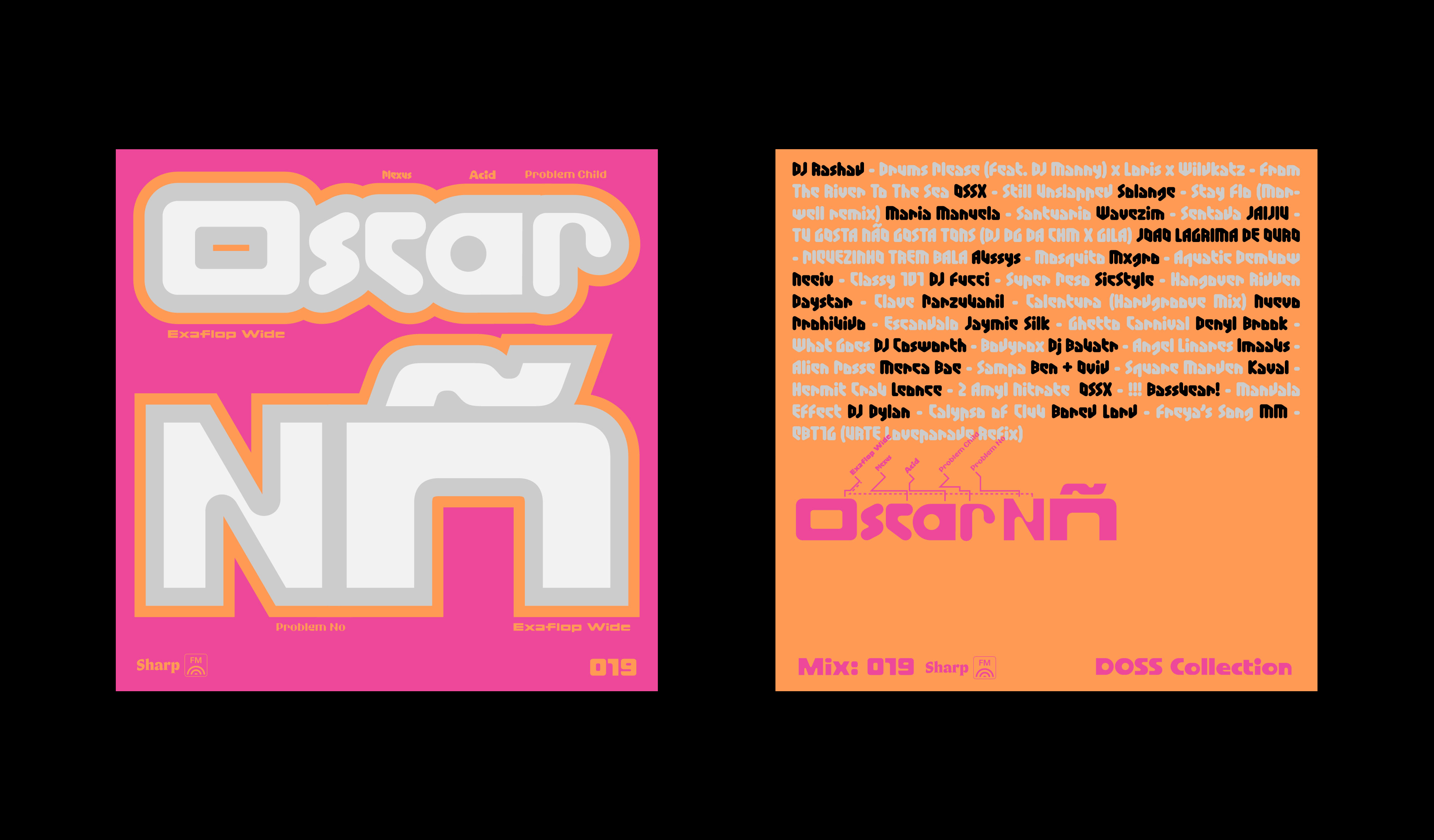
To coincide with the release of the DOSS collection, we asked one of NYC’s mixing masters, Oscar Nñ, to put together a special mix, and he did not disappoint. The music here is pure club bliss, showcasing Oscar’s trademark flair for pulling together infectious dance rhythms with unexpected samples that is altogether accessible yet often unexpected. Marc Rouault pulled from a host of influences in designing the DOSS family, but rave flyers and hi-fi brand logos figured prominently, making this new typeface release a perfect choice for the cover and tracklist graphics.
For the cover and tracklist, we dove into the DOSS toolbox. As a collection of display fonts that are loosely connected by their exaggerated geometric forms and thoroughly brazen design logic, we’re hoping these graphics convey what’s possible in the world of DOSS. Different DOSS letterforms are placed side-by-side within the same words to convey their interconnected qualities, amplifying their visual appeal.
The typography and graphic design is a nod to The Designers Republic. The Sheffield duo were the cool reference for anyone following UK design in the ‘90s. Their work was iconoclastic and stood out against the strictures of modernist design, exploding enthusiastically with a dizzying kaleidoscope of color, texture, and shape. This inspired a generation of young designers and progressed the visual language of UK club culture.  Not only does this complement the kinetic club sound of Oscar’s mix—it also makes perfect sense to retrofit the aesthetics of DR using the fonts of DOSS.
Playlist cover is a tribute to design by the Designers Republic, the essential Y2K era design office.